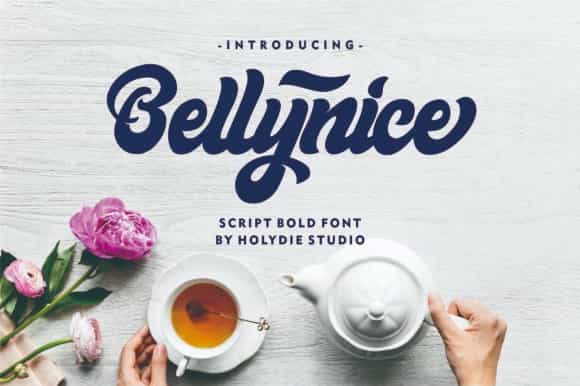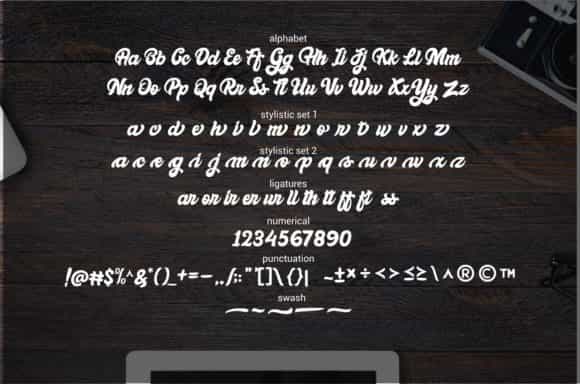
Discover Bellynice Bold Script Font, part of the Calligraphy collection—a versatile and unique font perfect for adding a personal touch to your projects. Download it for free and enjoy crafting designs with style, from invitations to social media posts. This font is available exclusively for personal use, giving you the freedom to create without limits. Unlock your creativity with Bellynice Bold Script Font today!
Introducing Bellynice Font. It belongs to the script bold family. It is derived from jelly fat and is an ideal choice for giving your designs a very bold appearance. The appropriate uses of this font include Headline, logo font, typography design, t-shirts design, invitation, branding, packaging, advertising, classic design, poster design, etc.